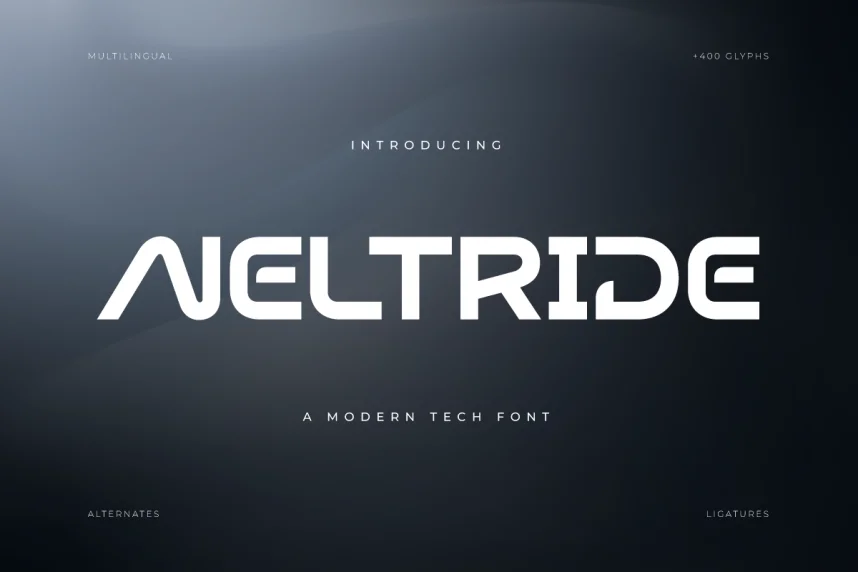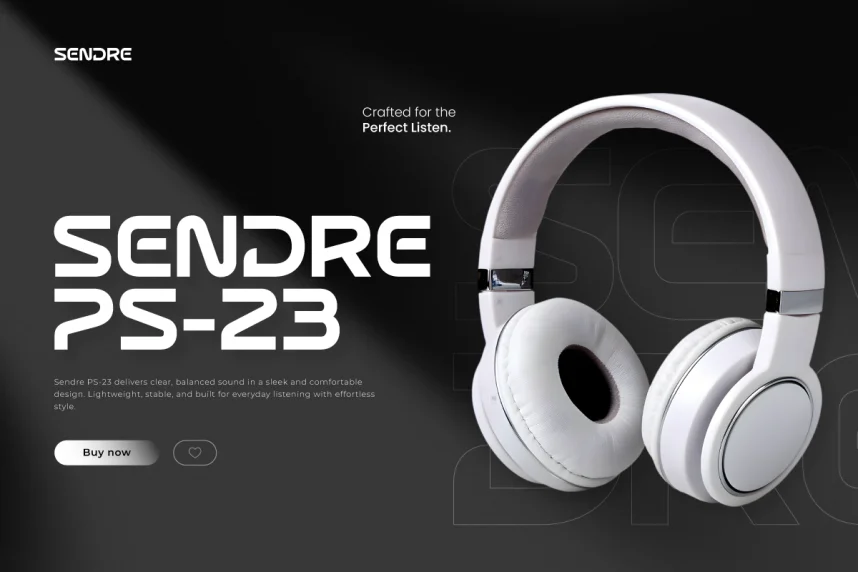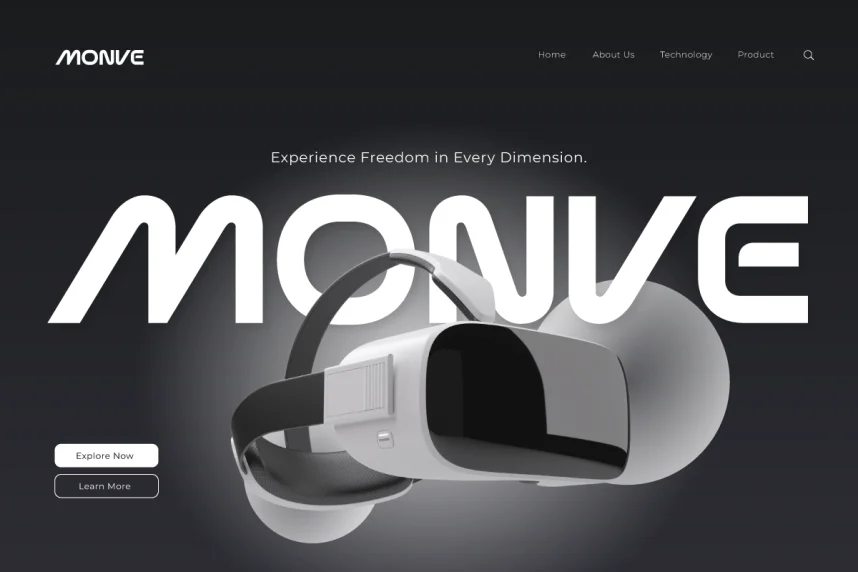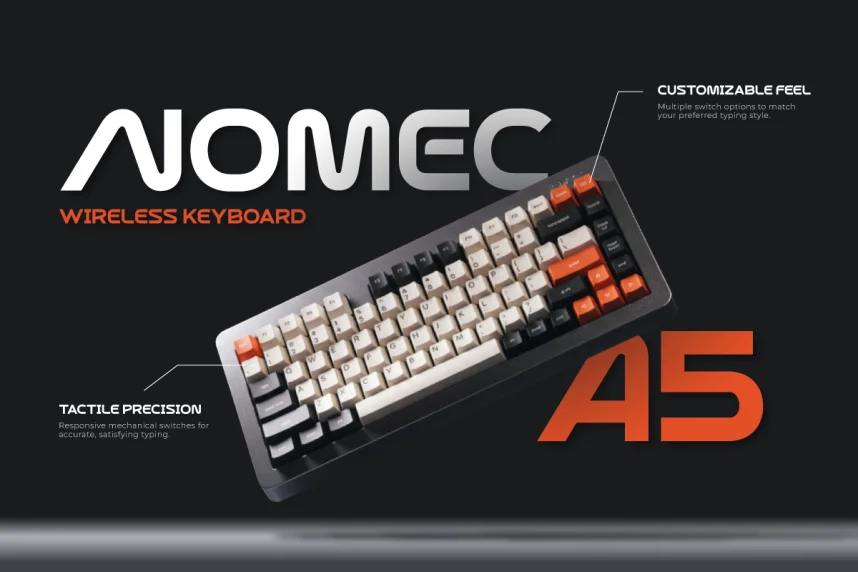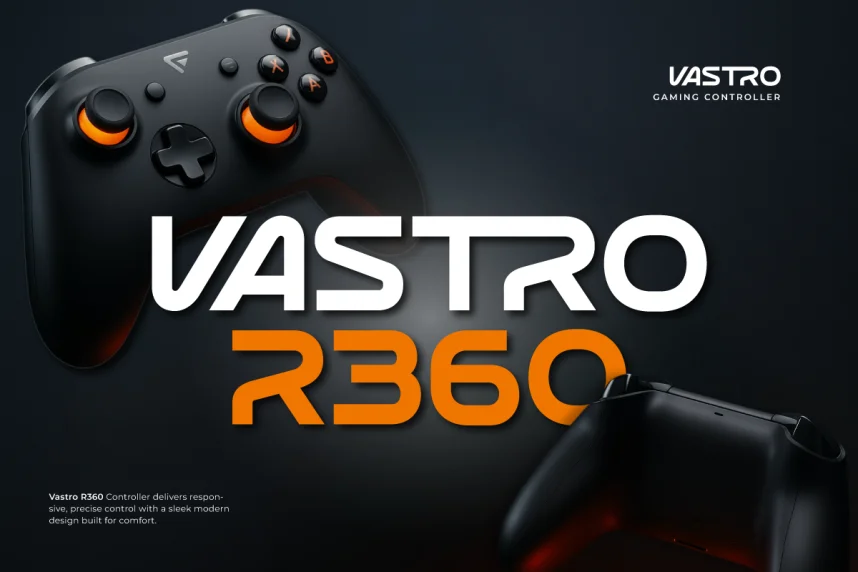
Neltride Modern Tech Font solves readability issues in futuristic branding and interface design. Many tech fonts prioritize style over function, limiting usability.
Neltride is a modern tech sans-serif font with sharp angles, clean lines, and uniform strokes. Letterforms follow geometric logic, supporting clarity in digital environments. The font works well in uppercase settings.